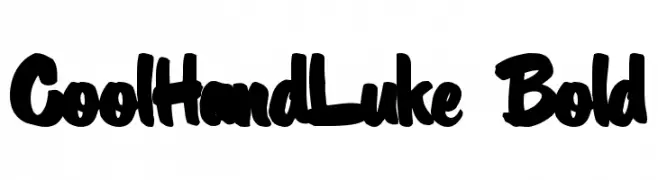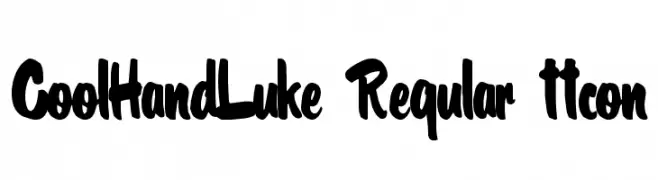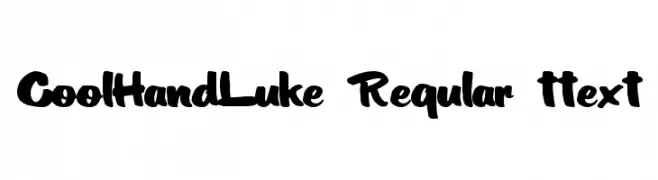
A bold, handwritten-style font with a playful and expressive character.
A bold, playful handwritten font with thick strokes and a casual style.
A bold, playful handwritten font with thick, rounded characters.